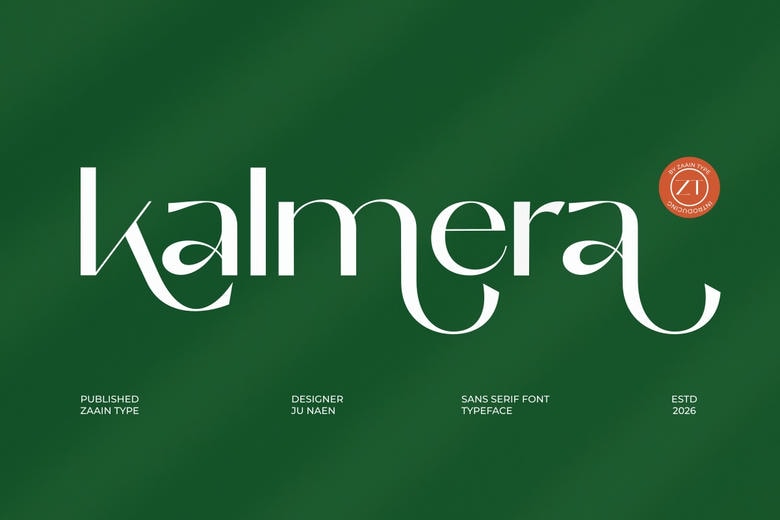
Kalmera Font
Kalmera is a contemporary sans serif font that combines simplicity and refined elegance. Designed with clean lines and balanced proportions with excellent readability, Kalmera has a professional yet stylish look. Its smooth curves and structured forms make it highly versatile, making it ideal for branding, editorial layouts, and digital interfaces.
With a minimalist aesthetic and a unique contemporary feel, Kalmera adds clarity and sophistication to any design. Whether used for headlines or body text it retains a polished and modern appearance at a variety of sizes. Kalmera is the perfect choice for creatives looking for a sleek timeless typeface that elevates visual communication
Kalmera Sans Serif Font